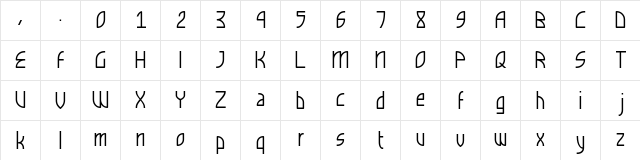
Space_Galaxy normal
Design Context for Space_Galaxy Typeface
Space_Galaxy is a composed and adaptable typeface that performs quietly and consistently across a wide range of design contexts.
Pro Tip: Use Space_Galaxy in both headline and body roles to test its range before committing to a single application.